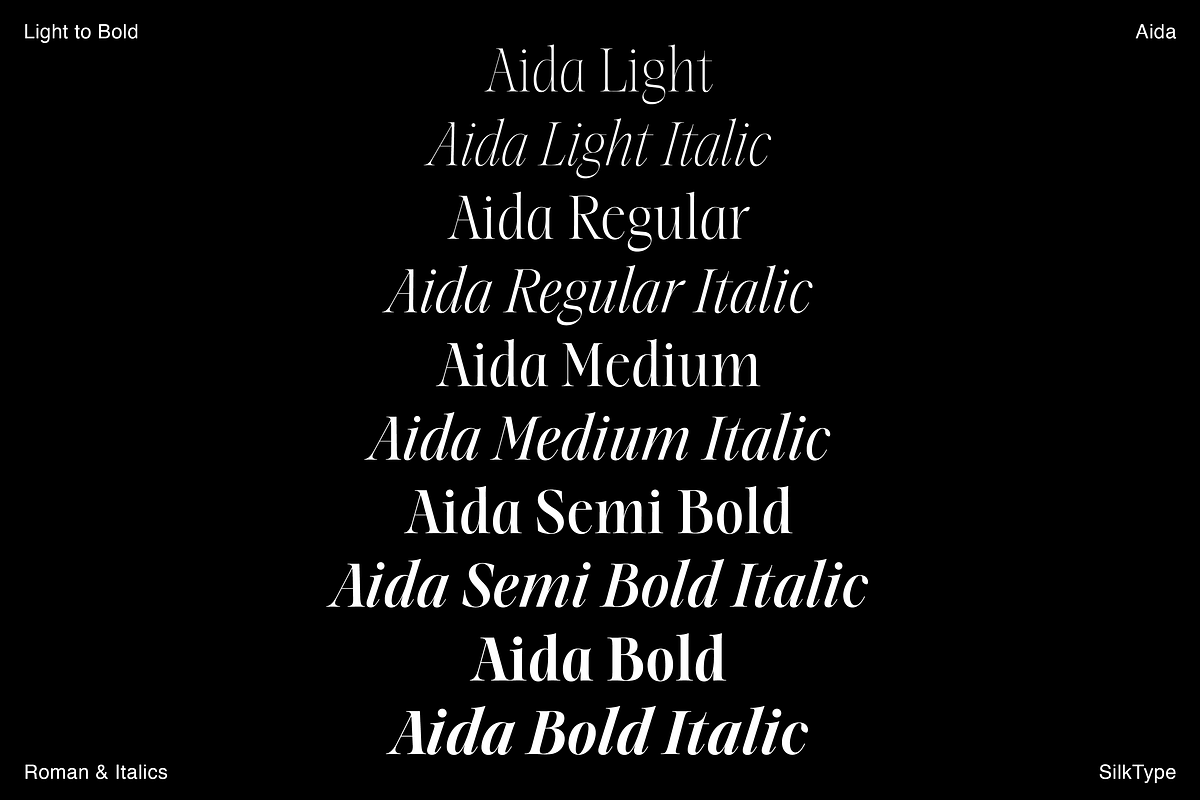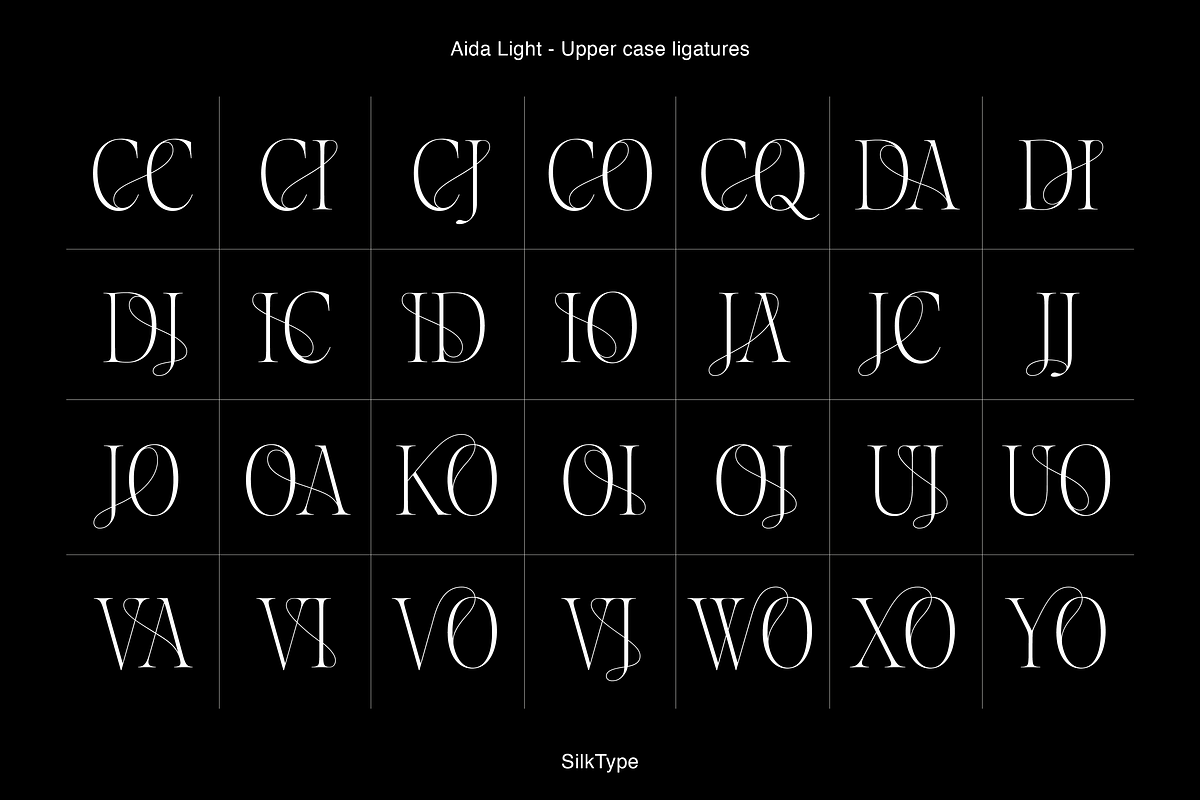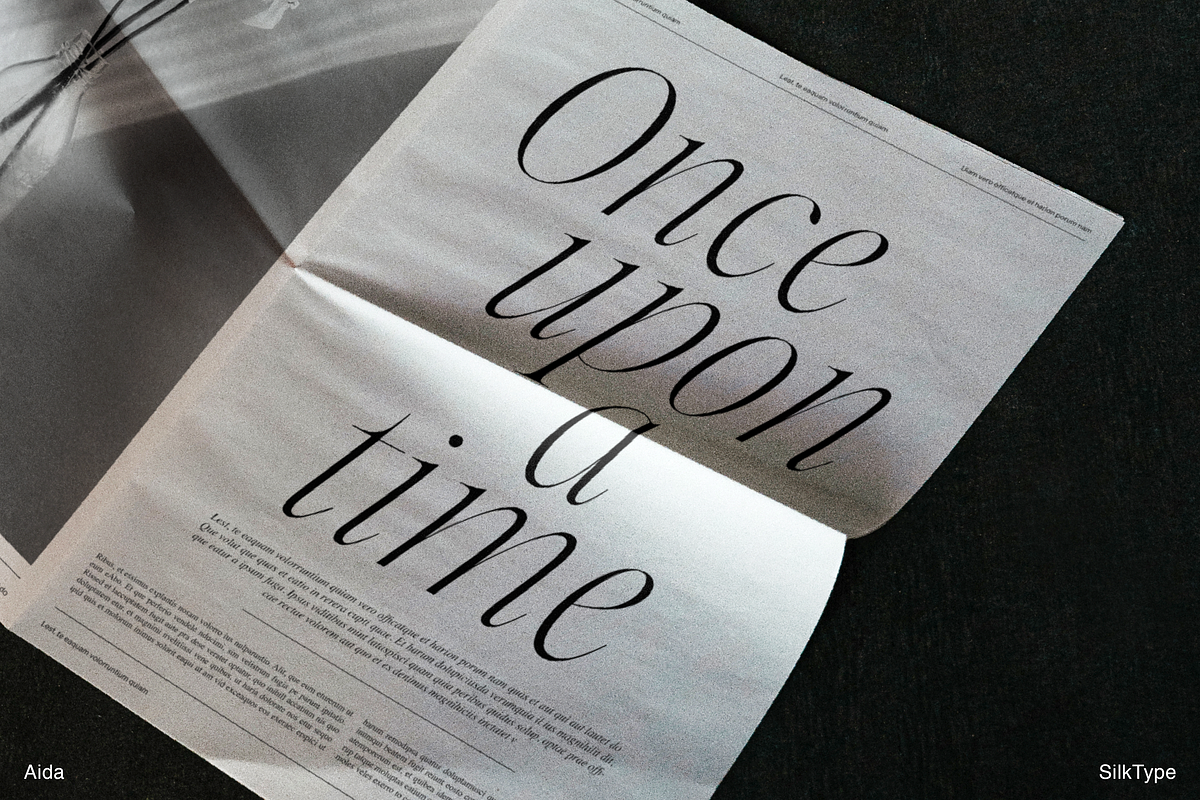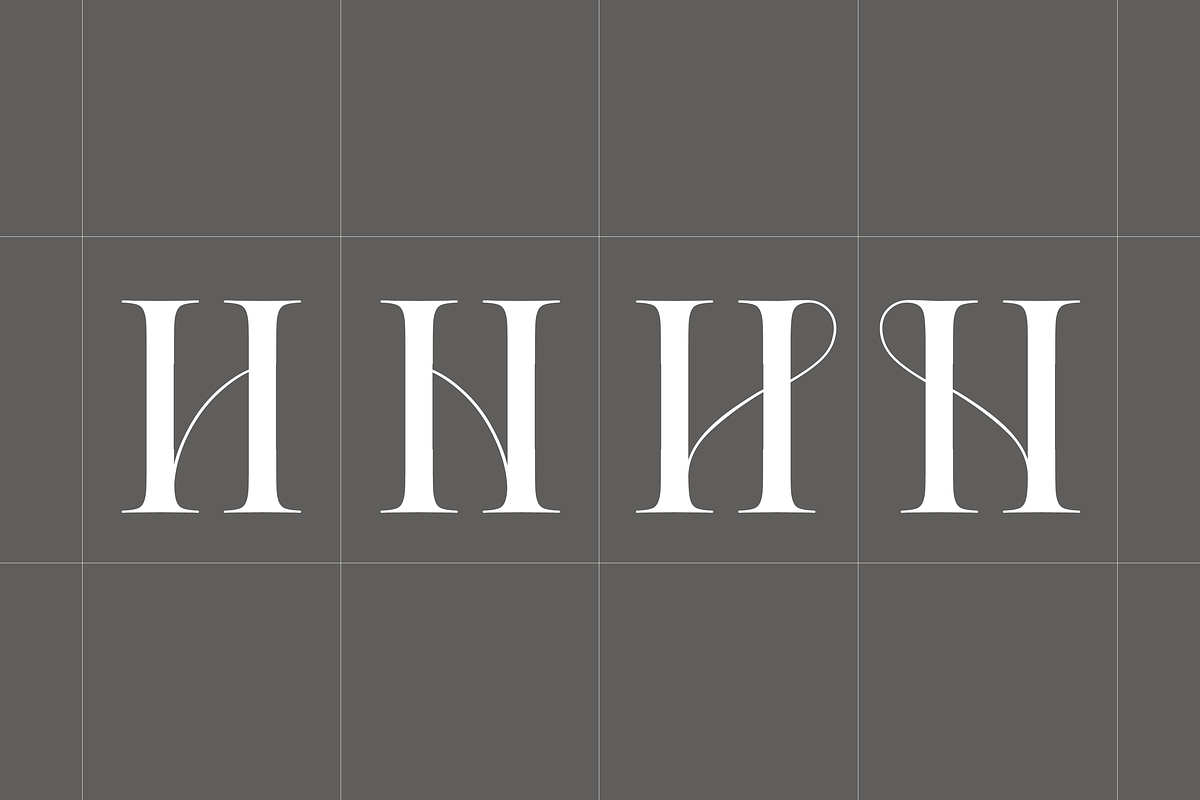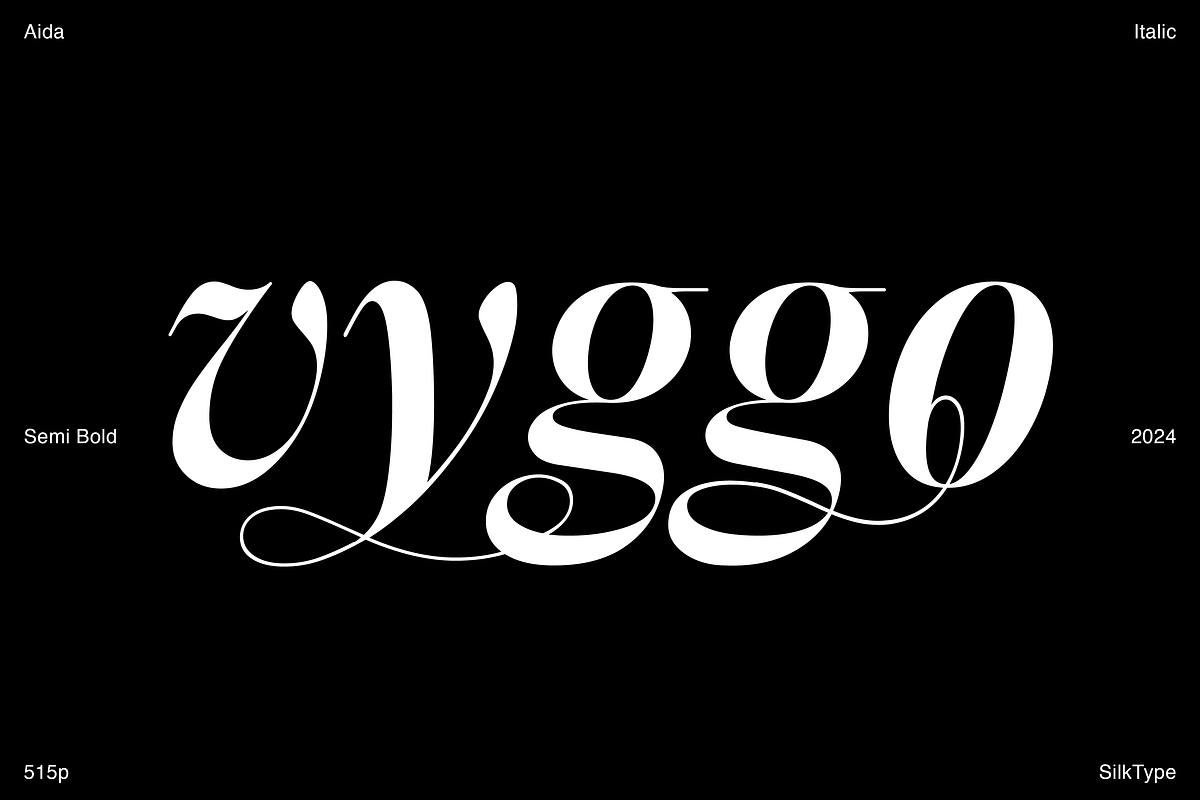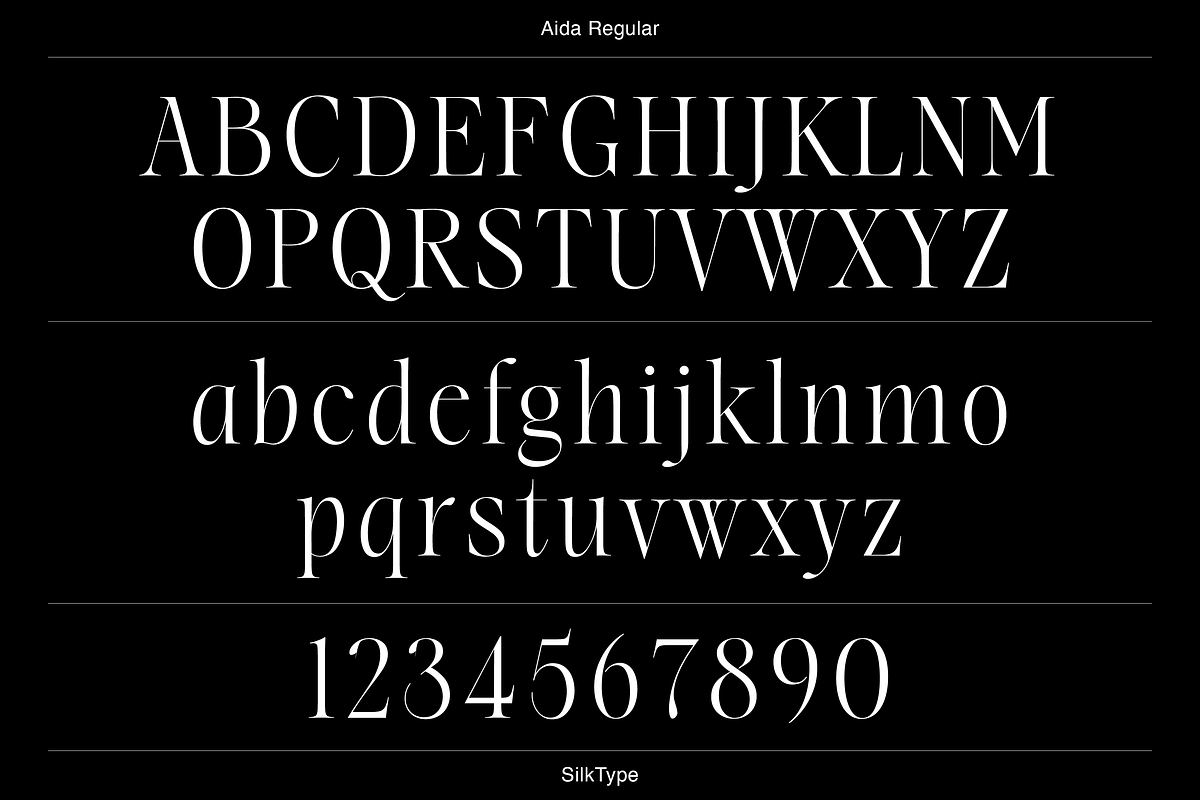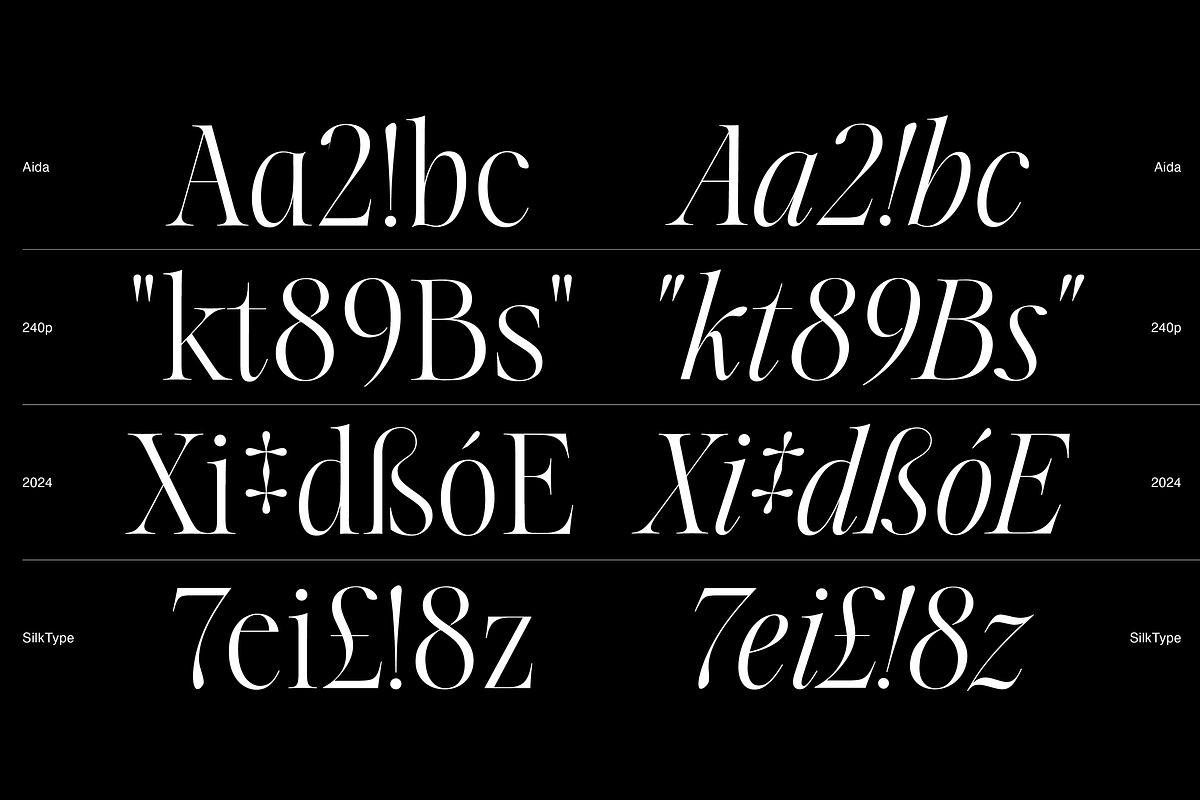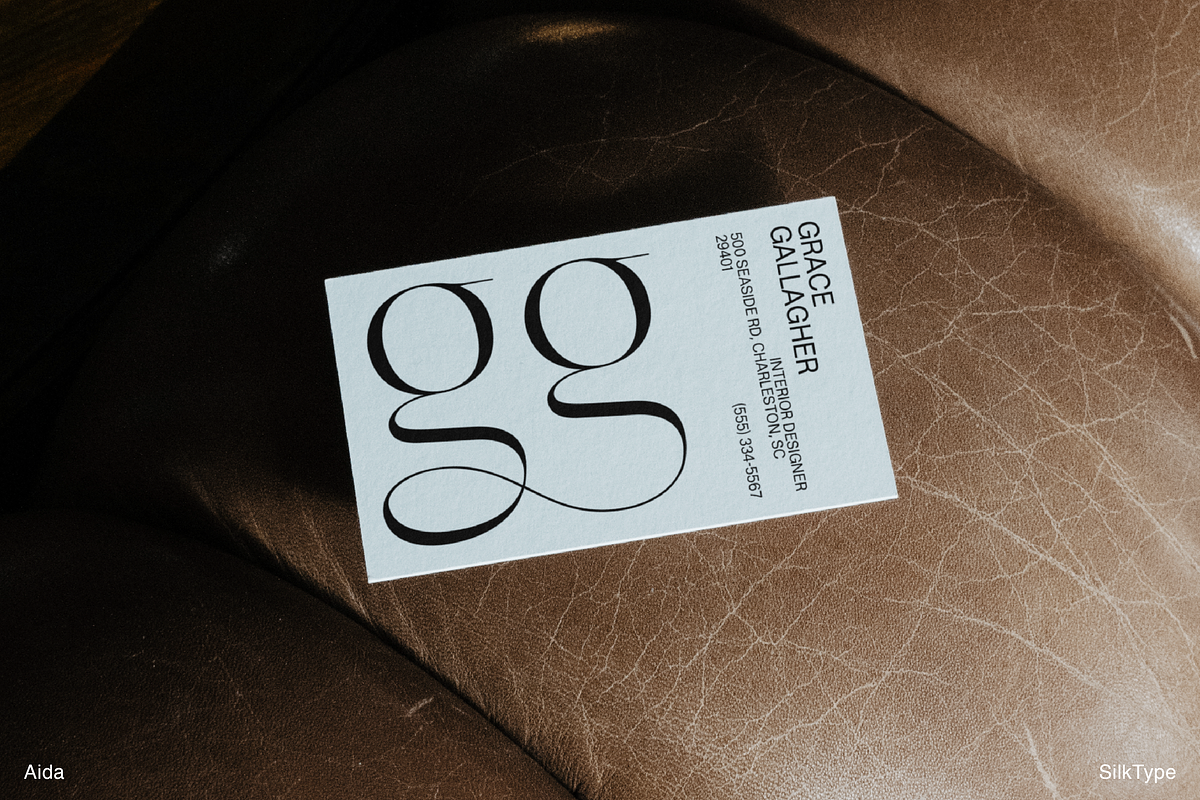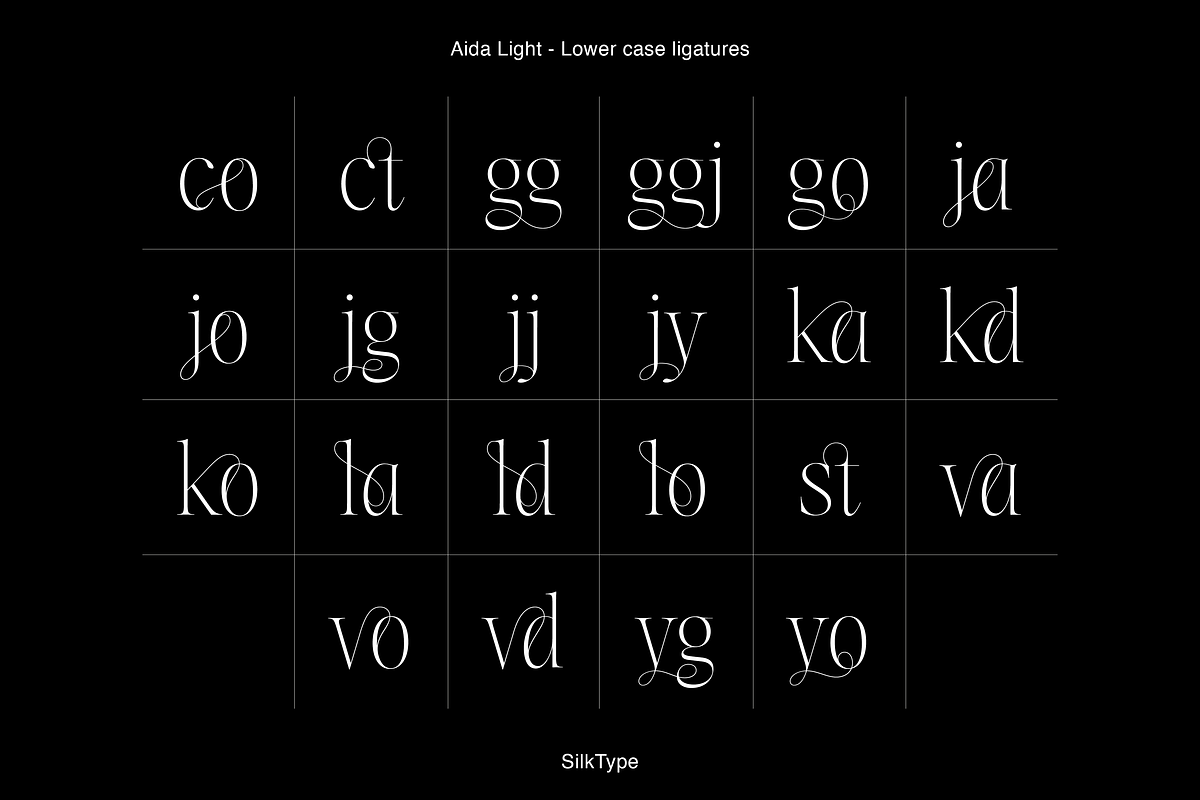
Aida | 10 Font Ligature Serif
Aida is a high-contrast display typeface made for elegant, eye-catching design. With its extra thin serifs and hairlines, it brings a sharp, refined look to headlines, fashion branding, and editorial layouts.
Now available as a full family of 10 styles—from Light to Bold, in both Roman and Italic—Aida gives you more ways to strike the right tone. It also includes over 100 decorative ligatures and alternates, so you can add personality and flow to any design.
Whether you're going for sleek and minimal or expressive and high-impact, Aida has the range to support bold ideas with subtle detail.